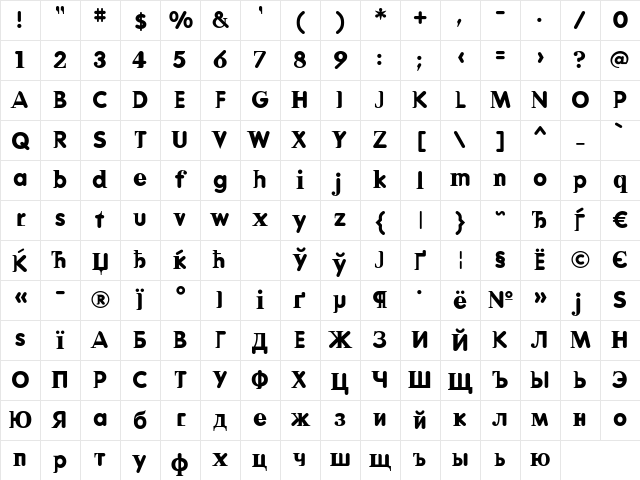
DeadHistoryCTTBold Regular
Copyright: Copyright (c) 1994 Emigre. Inc.; Designed by P. Scott Makela. Cyrillic design by ParaType, Inc.; Designer Igor Polovodov.
Designer: P. Scott Makela, Igor Polovodov.
Design Context for DeadHistoryCTTBold
DeadHistoryCTTBold is a composed and adaptable typeface that performs quietly and consistently across a wide range of design contexts. Its bold stroke weight gives it real presence on the page.